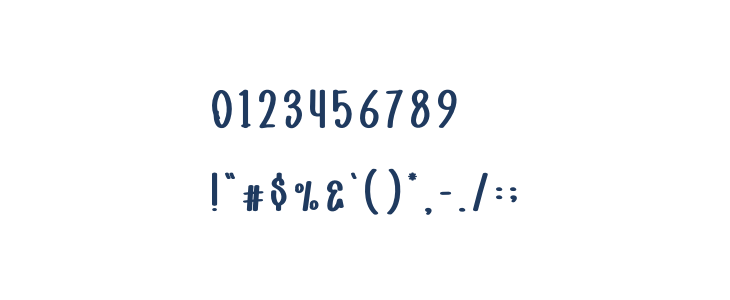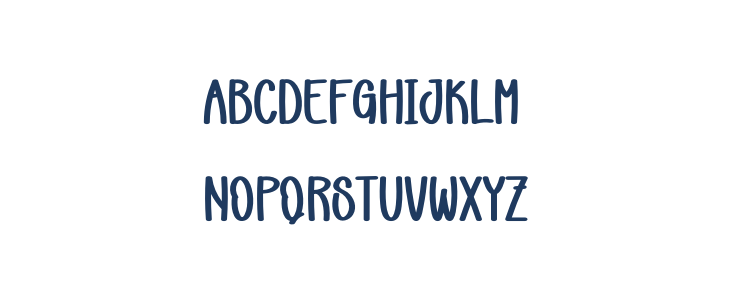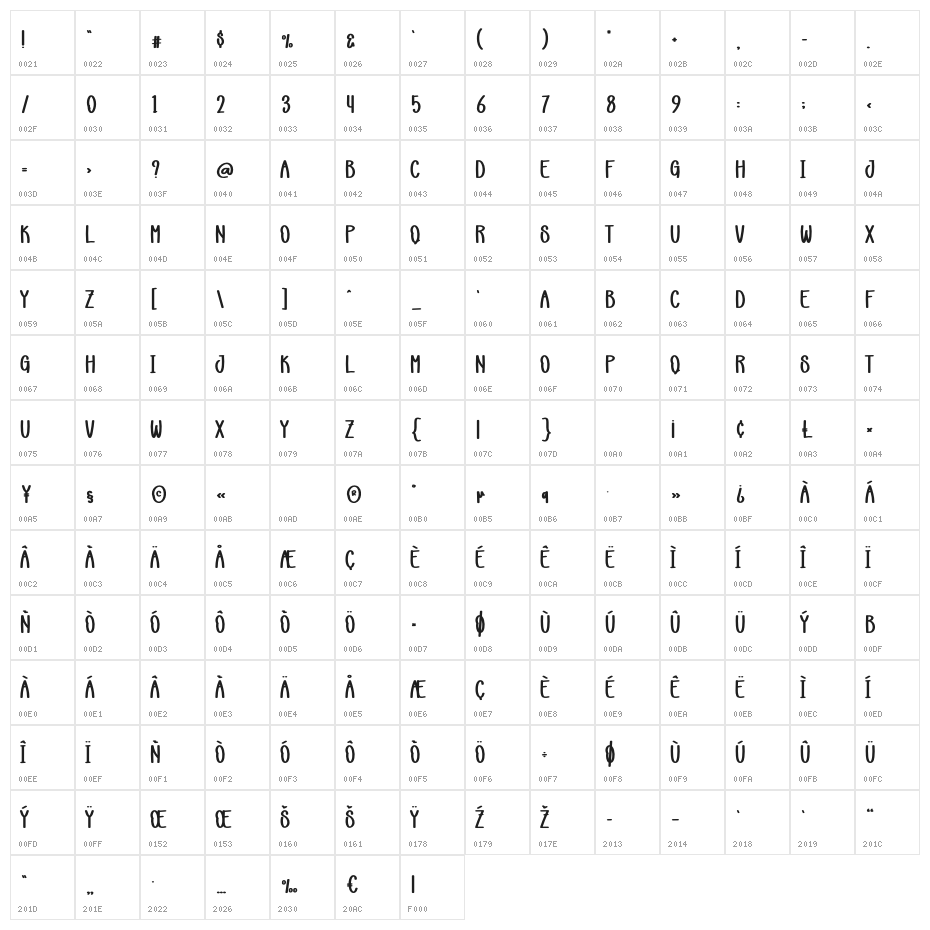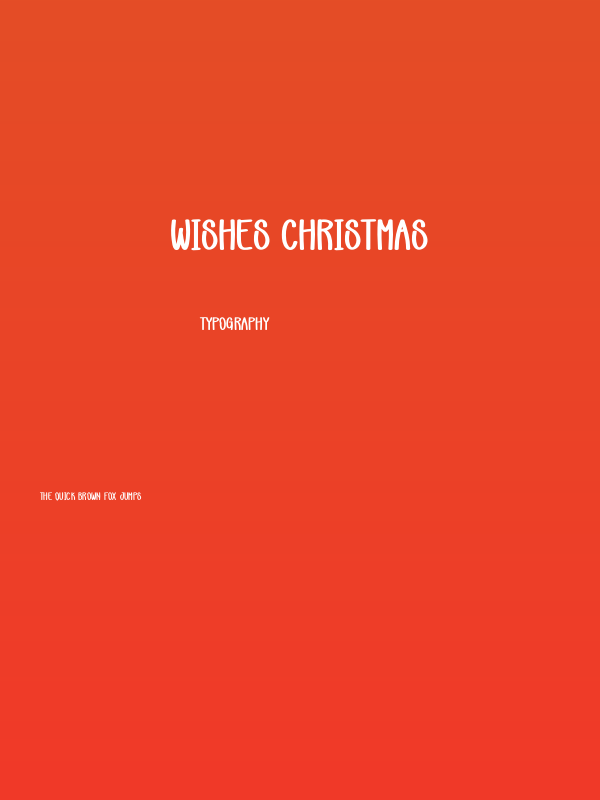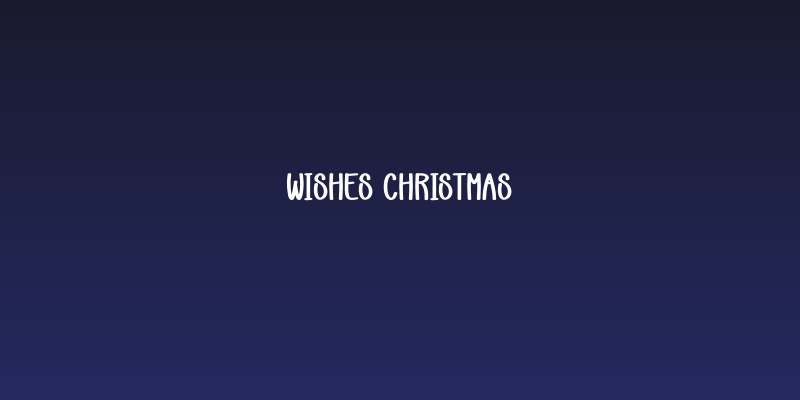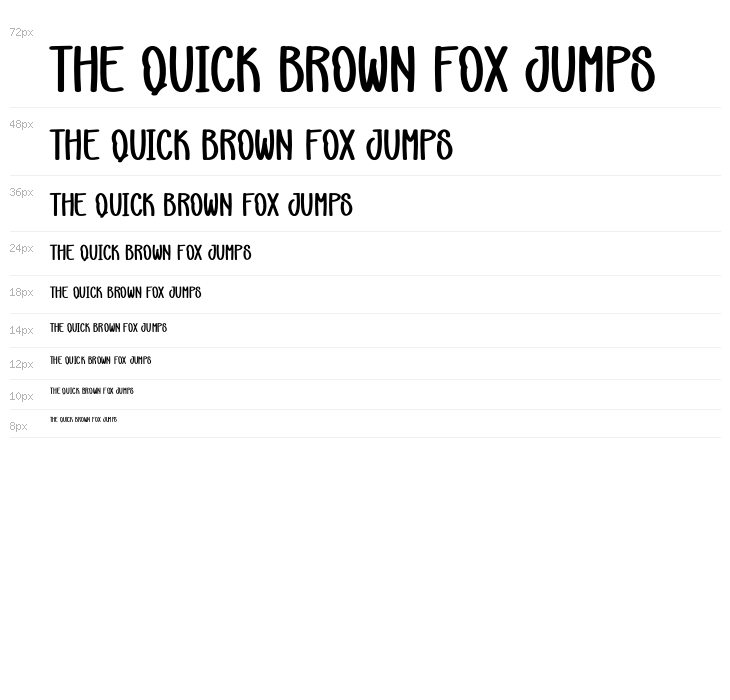
Wishes Christmas Font
Wishes Christmas Description
A playful, handwritten sans-serif font with rounded edges and a casual, friendly appearance. The strokes are consistent in thickness, and the characters have a slightly irregular, whimsical form, giving it a hand-drawn feel.
| Overall Style | Decorative, Playful, Handwritten |
| Use Case | Headlines, Greeting cards, Posters, Social media graphics |
| Proposed Projects | Greeting cards, holiday invitations, children's books, festive posters, social media graphics. |